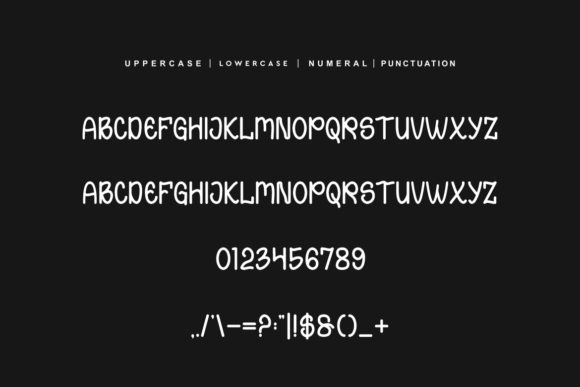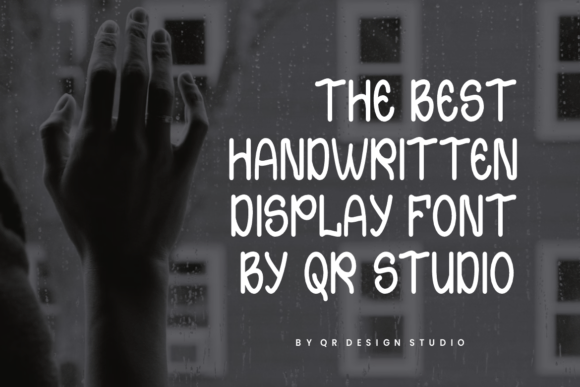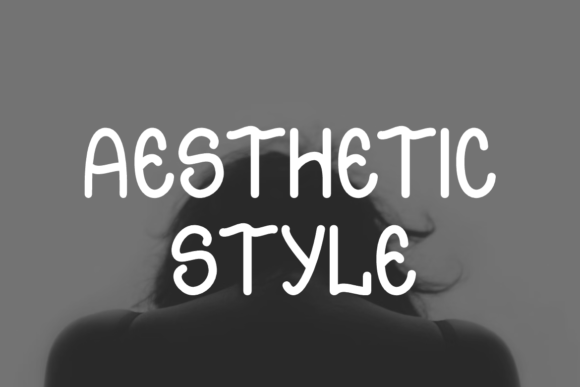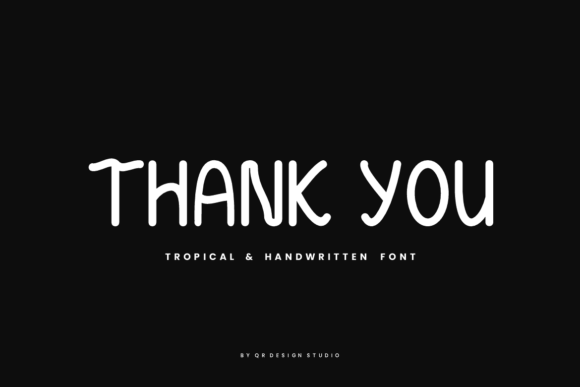
Introducing Bigusfo Font: The Sweet and Friendly Handwritten Font
Are you tired of using the same old fonts in your designs? Look no further than Bigusfo Font, a sweet and friendly handwritten font that’s sure to add a touch of personality to your projects. With its natural and unique style, Bigusfo Font is incredibly versatile and can be used in a wide range of designs, from crafting and DIY projects to digital designs and branding.
The Characteristics of Bigusfo Font
So, what makes Bigusfo Font so special? For starters, its handwritten style gives it a warm and approachable feel that’s perfect for designs that need a personal touch. The font’s natural and unique style also makes it stand out from more traditional fonts, adding a level of character and personality to your designs.
One of the best things about Bigusfo Font is its incredible versatility. Whether you’re working on a crafting project, a DIY tutorial, or a digital design, Bigusfo Font is sure to fit right in. Its friendly and approachable style makes it perfect for designs that need to connect with the viewer on a personal level, such as greeting cards, invitations, and social media graphics.
The Benefits of Using Bigusfo Font
So, why should you choose Bigusfo Font for your next design project? For one, its unique style ensures that your designs will stand out from the crowd. In a world where so many designs look the same, Bigusfo Font offers a refreshing change of pace.
Another benefit of using Bigusfo Font is its ease of use. Whether you’re a seasoned designer or a crafting newbie, Bigusfo Font is easy to work with and can be used in a variety of design programs. Plus, its friendly and approachable style makes it perfect for designs that need to connect with the viewer on a personal level.
Using Bigusfo Font in Your Designs
So, how can you use Bigusfo Font in your designs? The possibilities are endless! Here are a few ideas to get you started:
- Crafting projects: Use Bigusfo Font to add a personal touch to your crafting projects, such as scrapbooking, card making, and DIY tutorials.
- Digital designs: Use Bigusfo Font in your digital designs, such as social media graphics, blog posts, and email newsletters.
- Branding: Use Bigusfo Font to add a touch of personality to your brand’s marketing materials, such as business cards, brochures, and flyers.
- Greeting cards and invitations: Use Bigusfo Font to create personalized greeting cards and invitations that are sure to stand out.
Tips for Getting the Most Out of Bigusfo Font
Here are a few tips for getting the most out of Bigusfo Font:
- Experiment with different colors: Bigusfo Font looks great in a variety of colors, so don’t be afraid to experiment and find the perfect hue for your design.
- Pair it with other fonts: Bigusfo Font pairs well with a variety of other fonts, so try pairing it with a bold font for a fun and playful look.
- Use it in combination with images: Bigusfo Font looks great in combination with images, so try using it to add a caption or quote to a photo.